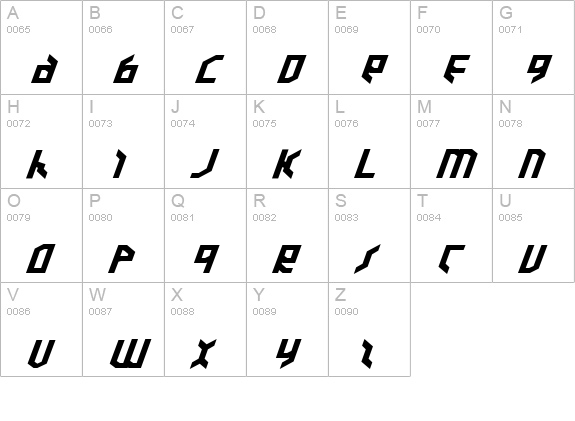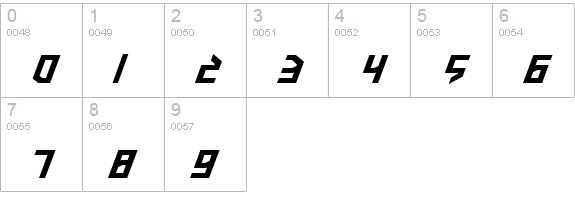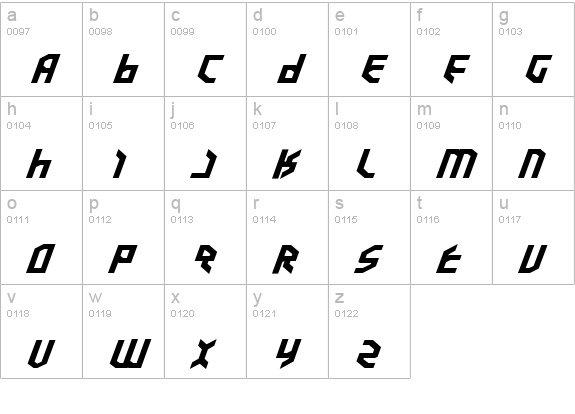
Valkyrie ExpBold Italic is a distinctive, italic variant in the Valkyrie typeface family \xE2\x80\x94 well suited to design and typography projects.
Introducing Valkyrie ExpBold Italic font - a striking and dynamic typeface that commands attention with its bold and italicized design. The Valkyrie font exudes strength and elegance, making it perfect for headlines, titles, and other display purposes. The sleek lines and sharp angles of this font give it a modern and futuristic feel, perfect for adding a touch of sophistication to your designs. Best of all, Valkyrie ExpBold Italic font is available for free download at FontsMarket.com! Don't miss out on the opportunity to enhance your projects with this stunning and versatile typeface. Whether you're working on branding, advertising, or any other creative endeavor, Valkyrie will help you make a lasting impression. Download it today and take your designs to the next level!